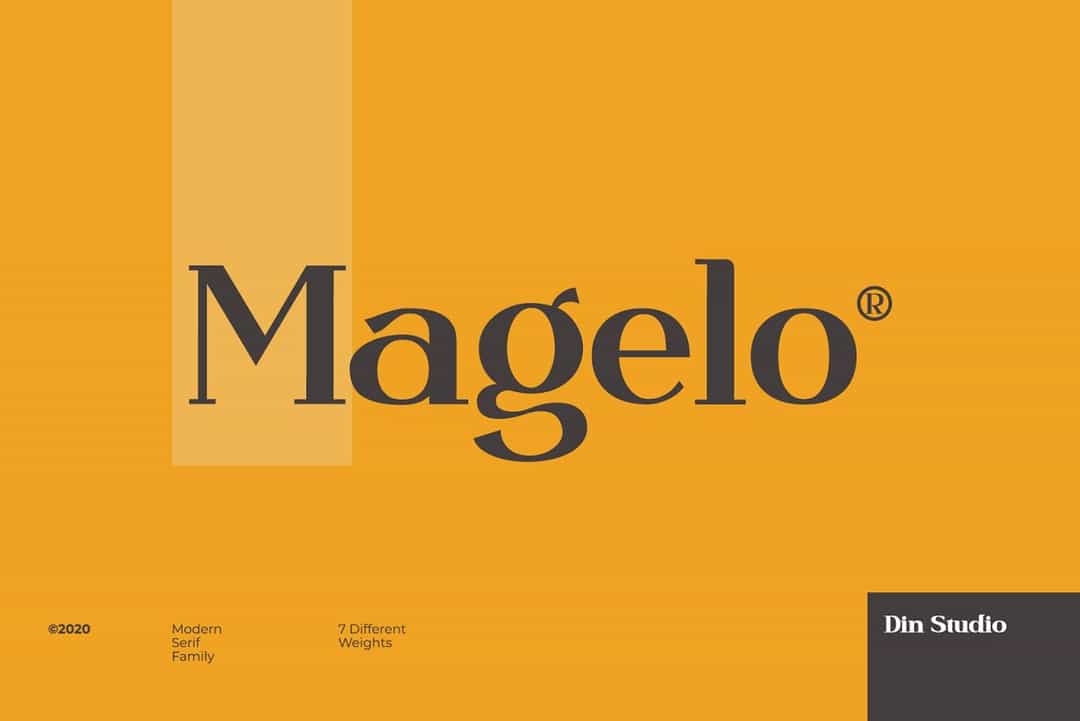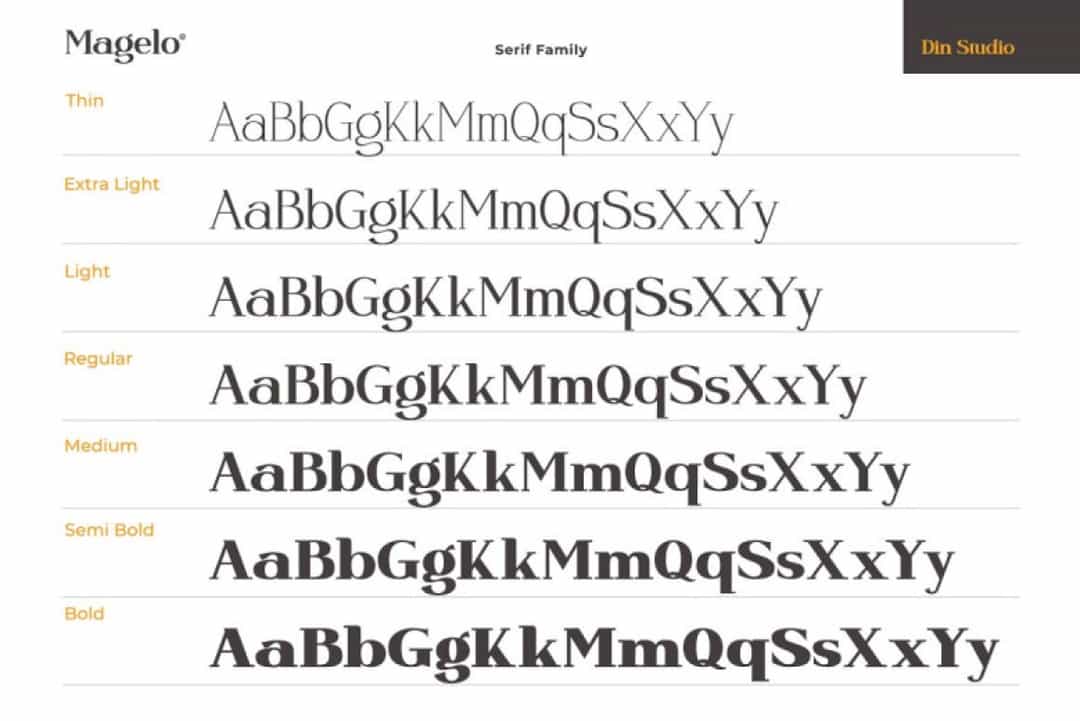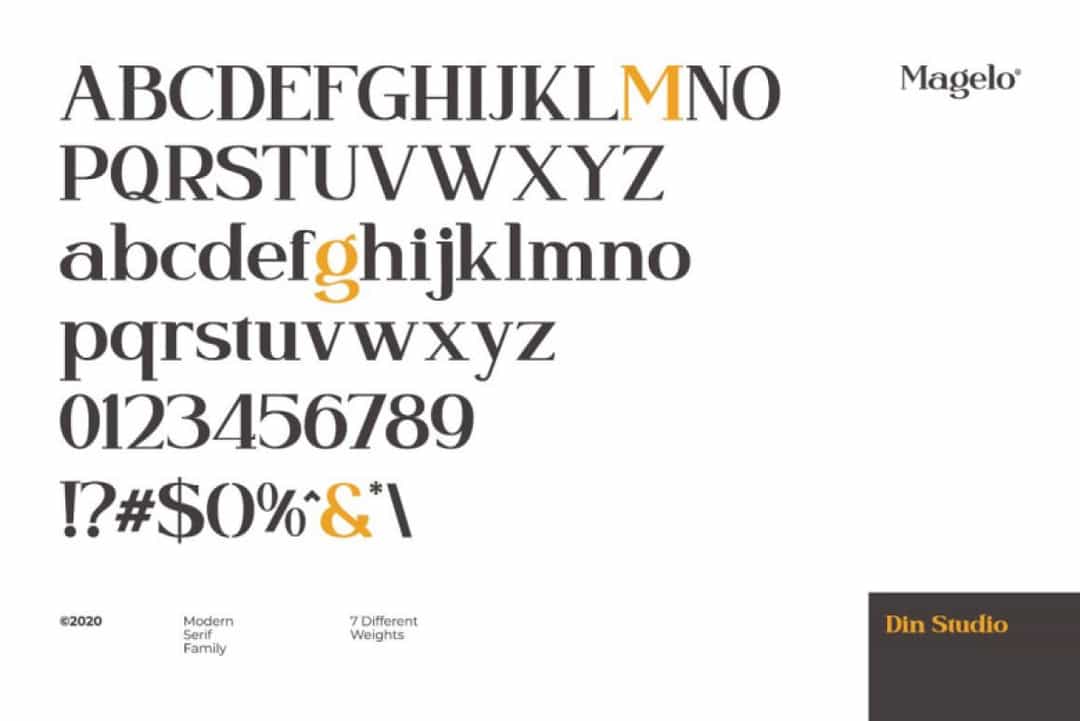
Magelo is an exquisite hand-crafted serif font designed and released through Din Studio that boasts an elegant contemporary style. This font can be especially captivating when applied across various designs or promotions.